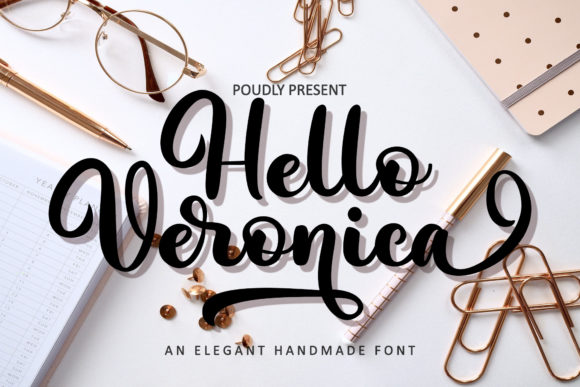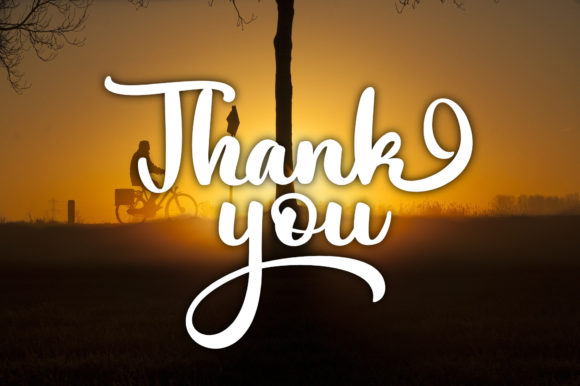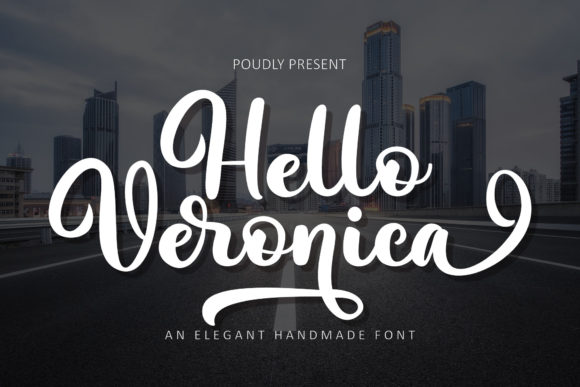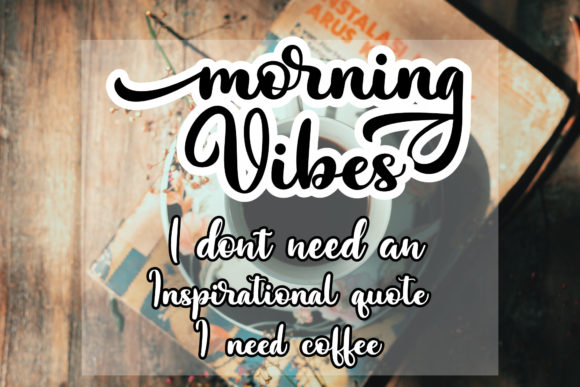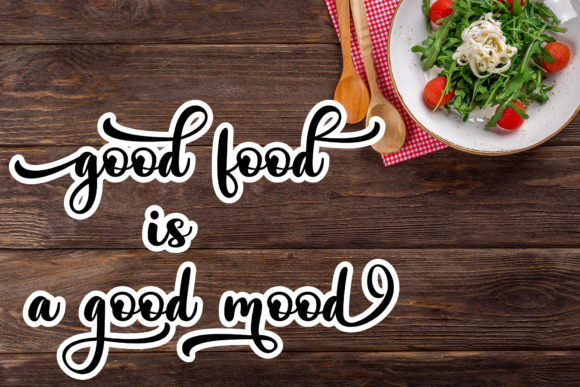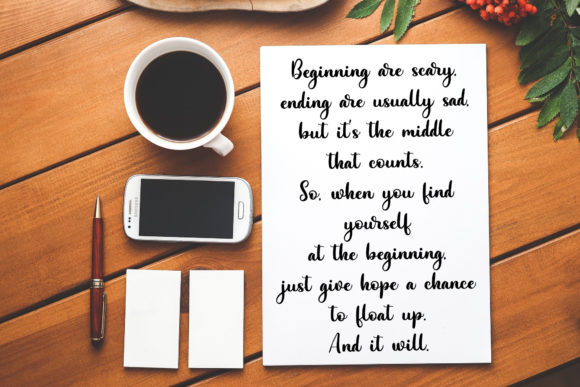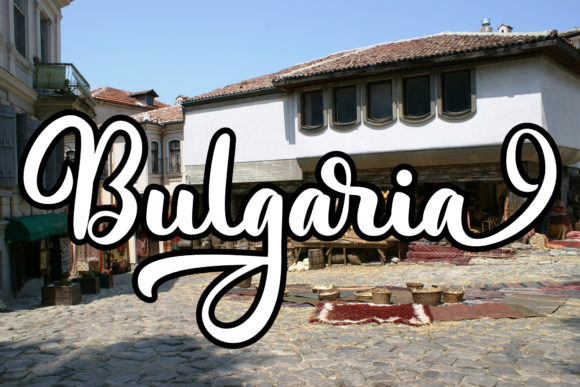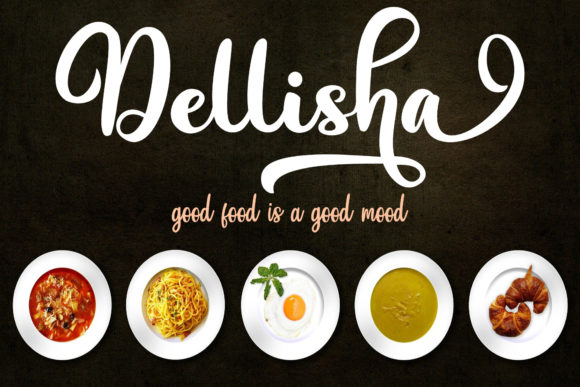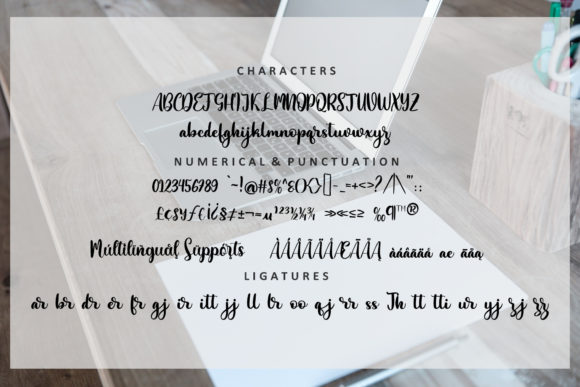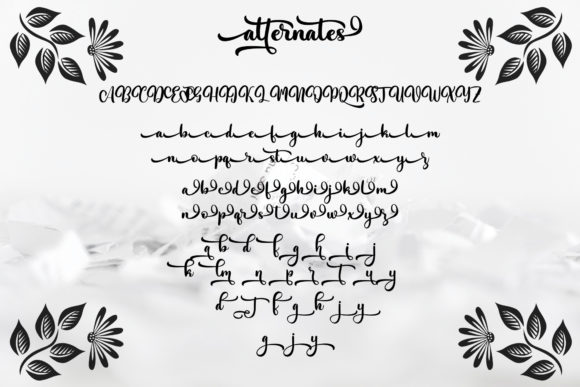
Hello Veronica Font
About Hello Veronica Font
Hello Veronica is an elegant script font with a contemporary atmosphere and impeccable form, inspired by a timeless classic calligraphy.